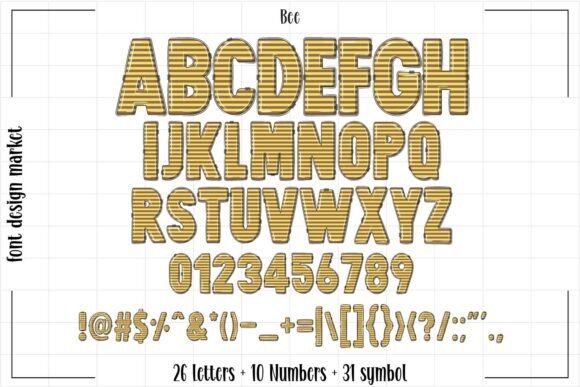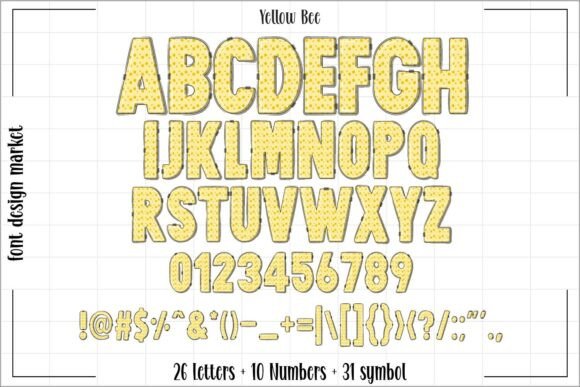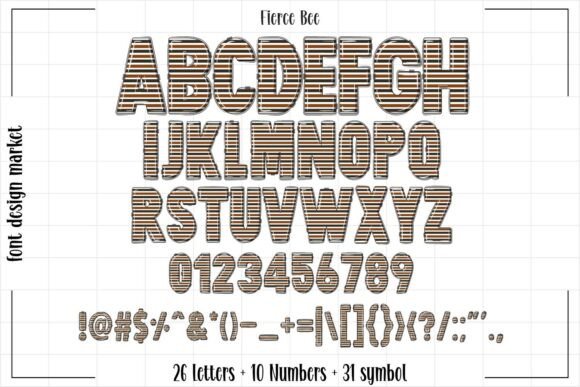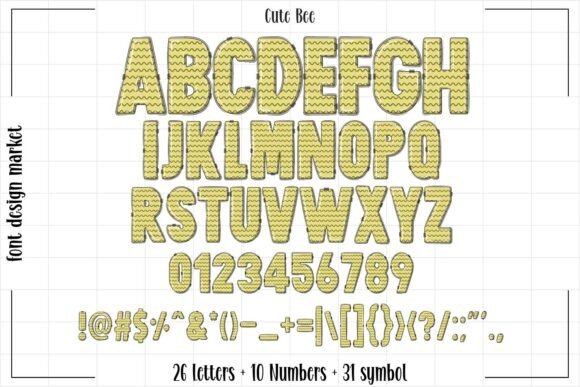
Bee Font: The Whimsical Charm of Pastel Colors
In the world of typography, few fonts capture the essence of whimsy and playfulness as beautifully as Bee Font. This enchanting color font is designed to bring a touch of magic to any design project, with its soft, pastel shades and delicate bee-inspired aesthetic. In this article, we’ll explore the unique features of Bee Font, its uses, and why it’s a superb choice for designers and crafters looking to add a sprinkle of cuteness to their work.
The Unique Features of Bee Font
Bee Font is a creative typeface that stands out from the crowd with its distinctive, hand-crafted design. Each letter is brought to life with the softness of bee wings in sublime pastel shades, creating a visually appealing and engaging effect. The font’s unique features include:
- Pastel Colors: Bee Font features a range of soft, pastel shades that evoke a sense of whimsy and playfulness. The colors are carefully chosen to create a cohesive and harmonious look that’s perfect for designs that require a touch of sweetness.
- Bee-Inspired Aesthetic: The font’s design is inspired by the delicate wings of bees, with intricate details and patterns that add to its charm. The bee-inspired aesthetic makes Bee Font perfect for designs that require a natural, earthy feel.
- Hand-Crafted Design: Bee Font is a hand-crafted typeface, which means that each letter is carefully designed to ensure a unique and personalized look. The hand-crafted design adds to the font’s whimsical charm and makes it stand out from more traditional fonts.
Uses of Bee Font
Bee Font is a versatile typeface that can be used in a variety of design projects, including:
- Children’s Literature: Bee Font is a perfect choice for children’s books, with its playful and whimsical design that’s sure to capture young readers’ attention. The font’s pastel colors and bee-inspired aesthetic create a soothing and engaging atmosphere that’s ideal for kids’ literature.
- Greeting Cards: Bee Font is also a great choice for heartfelt greeting cards, with its delicate and charming design that’s perfect for expressing emotions. The font’s soft pastel colors add a touch of warmth and sincerity to any card design.
- Design Projects: Bee Font can be used in a variety of design projects, from branding and packaging to posters and flyers. The font’s unique design and pastel colors make it a great choice for designers looking to add a touch of whimsy to their work.
Why Choose Bee Font?
So why choose Bee Font for your design projects? Here are just a few reasons:
- Unique Design: Bee Font’s unique design sets it apart from more traditional fonts, making it a great choice for designers looking to add a touch of personality to their work.
- Whimsical Charm: Bee Font’s whimsical charm is sure to capture the attention of your audience, whether you’re designing for children or adults. The font’s playful design creates a sense of wonder and enchantment that’s hard to ignore.
Tips for Using Bee Font
Here are a few tips for using Bee Font in your design projects:
- Pair with Simple Backgrounds: Bee Font’s pastel colors and intricate design make it a great choice for designs with simple backgrounds. Pair the font with a plain background to create a clean and visually appealing effect.
- Experiment with Colors: Bee Font’s unique design allows for a range of color combinations. Experiment with different colors to find the perfect combination for your design project.
- Use for Headings and Titles: Bee Font is perfect for headings and titles, with its bold and playful design that’s sure to capture attention. Use the font to add a touch of whimsy to your design and create a visually appealing effect.
In conclusion, Bee Font is a charming and whimsical typeface that’s perfect for designers and crafters looking to add a touch of magic to their work. With its soft pastel colors, bee-inspired aesthetic, and hand-crafted design, Bee Font is a superb choice for children’s literature, greeting cards, and any project that requires a sprinkle of cuteness and playfulness. So why not immerse yourself in the fairy-tale essence of Bee Font and spark joy in every design you craft?